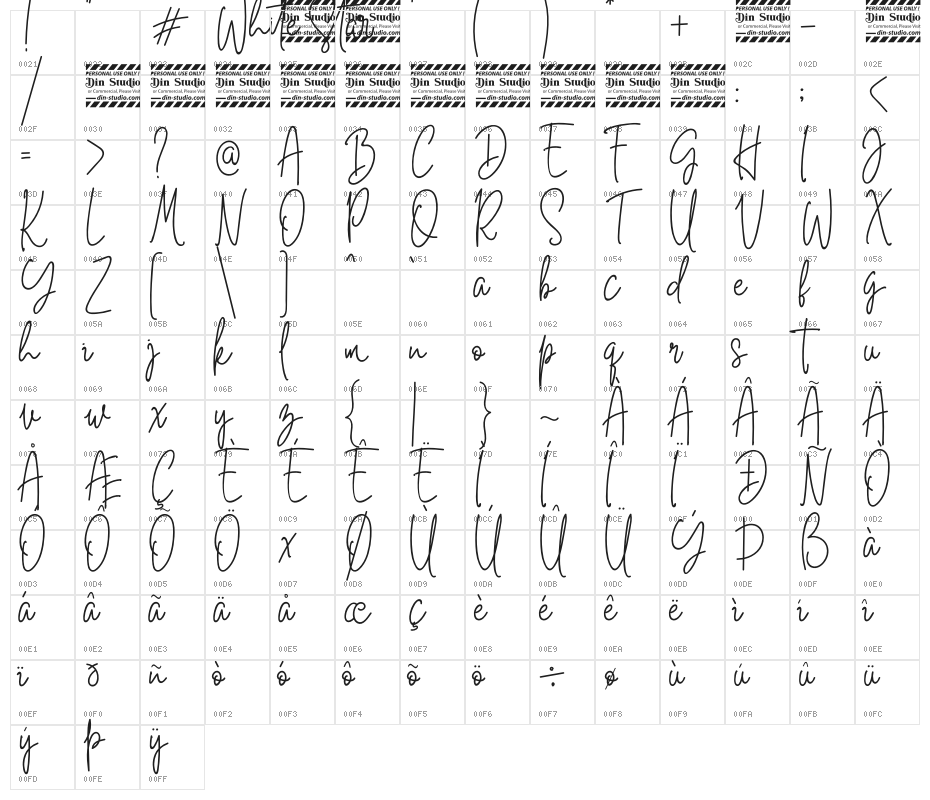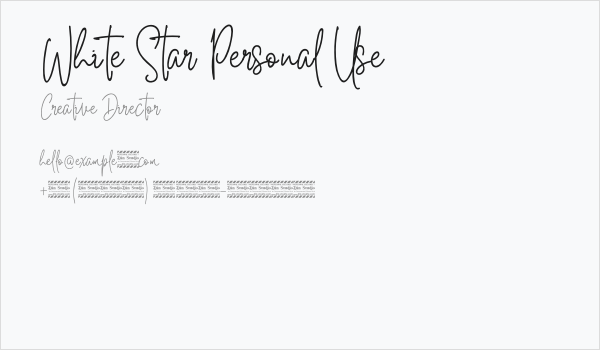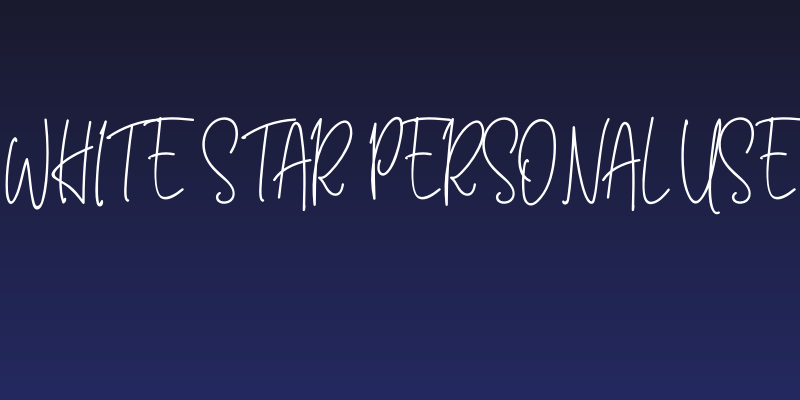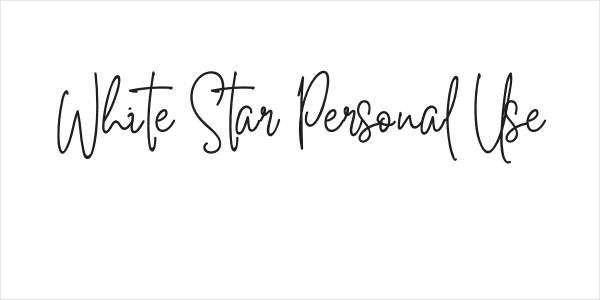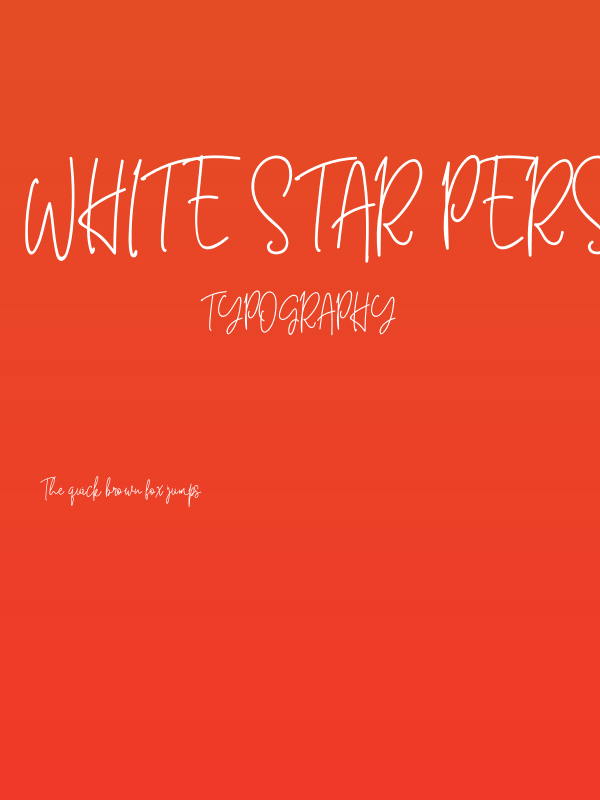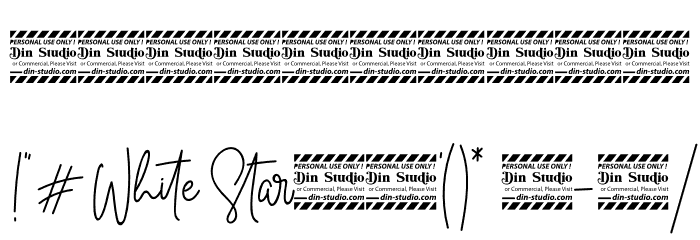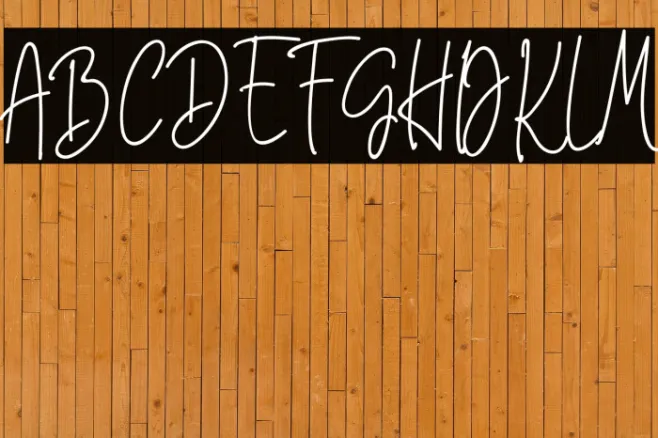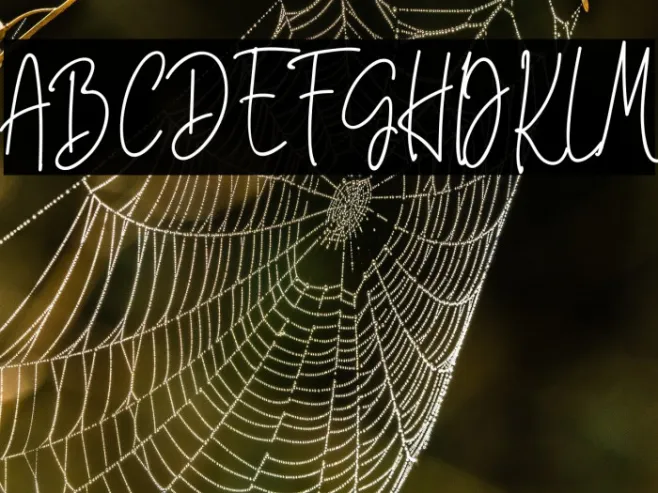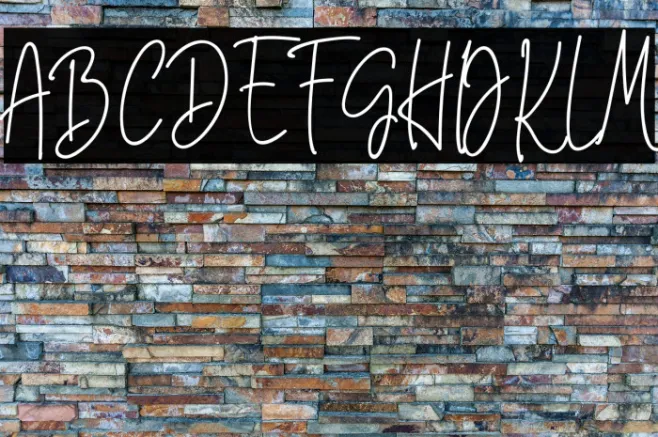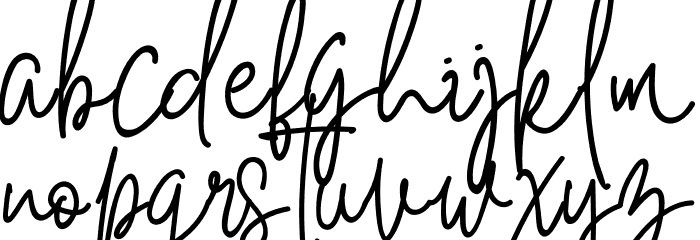
White Star Personal Use Font
White Star Personal Use Description
This font features a dynamic and expressive handwritten style, characterized by its fluid and continuous strokes. The letters are elegantly elongated, with a playful yet sophisticated flair. The uppercase and lowercase letters maintain a consistent flow, creating a sense of movement and rhythm. The font includes a full set of numerals and a selection of special characters, enhancing its versatility. Its organic and personal touch makes it ideal for projects that require a human element or a touch of creativity.